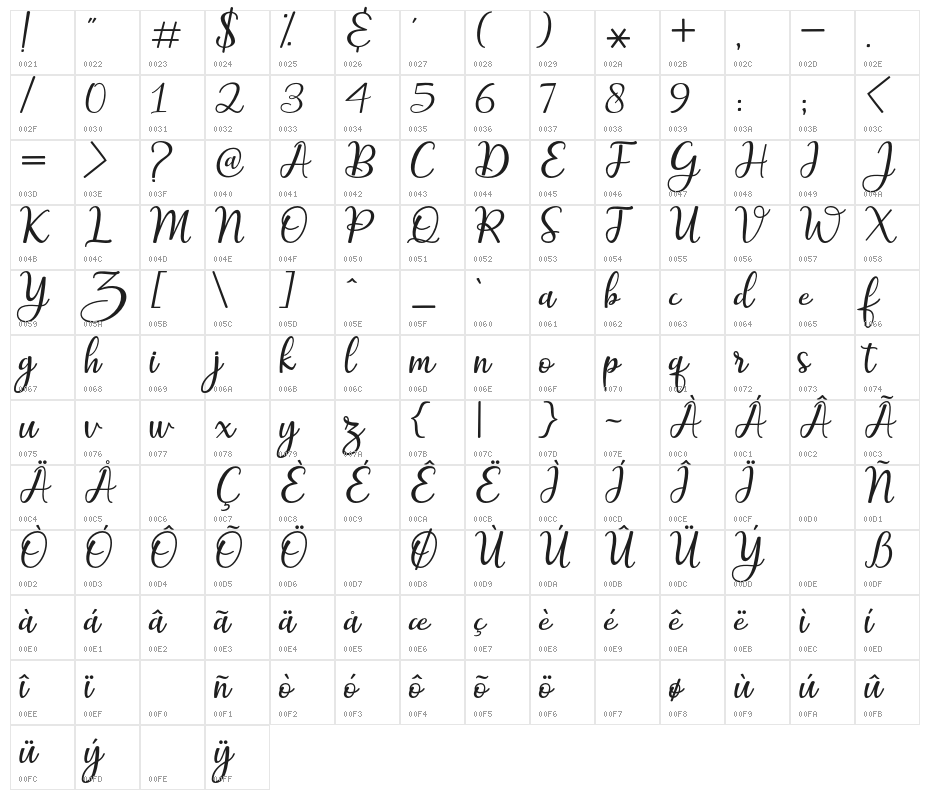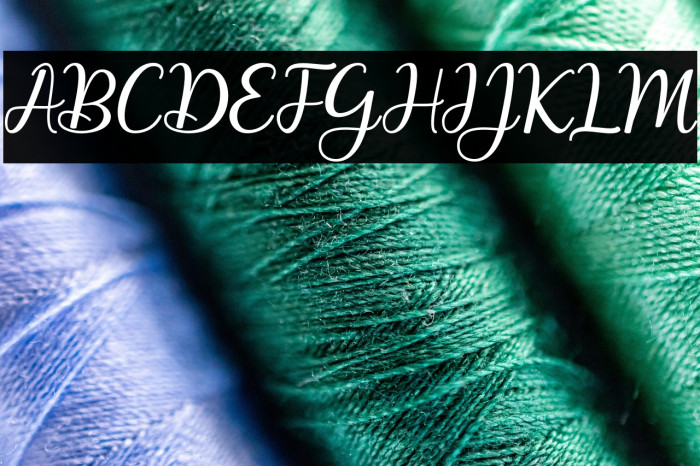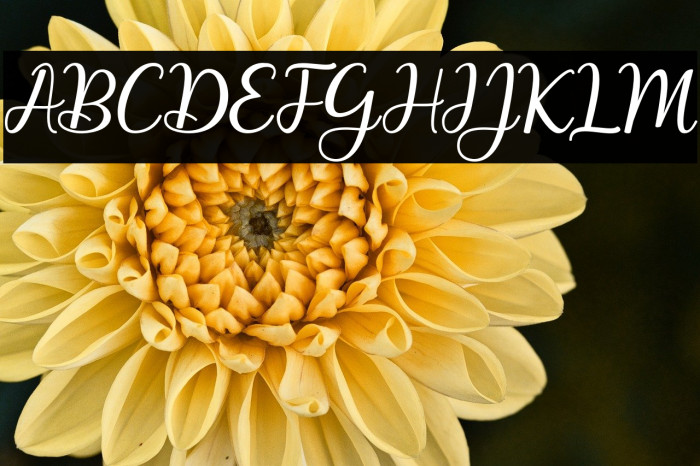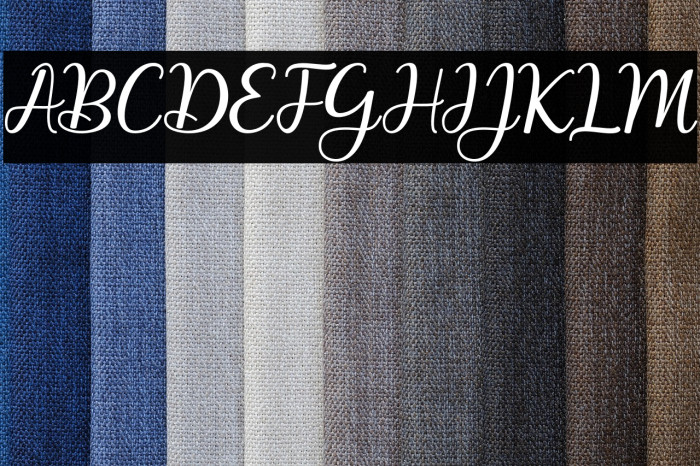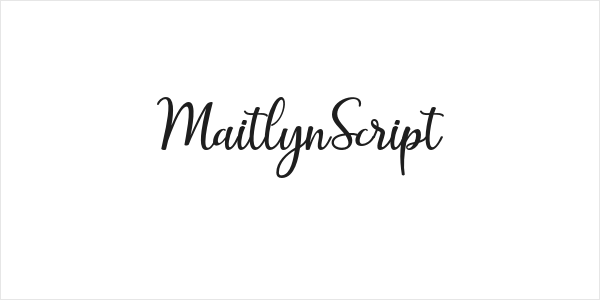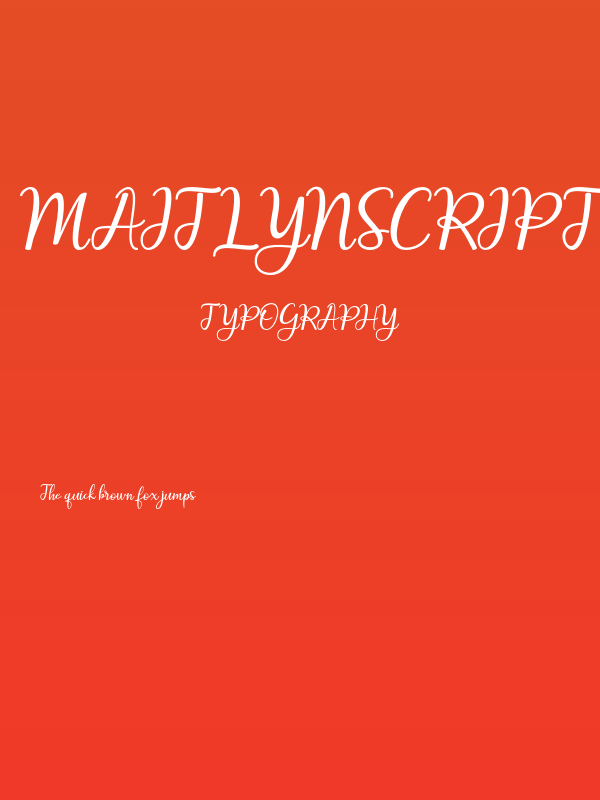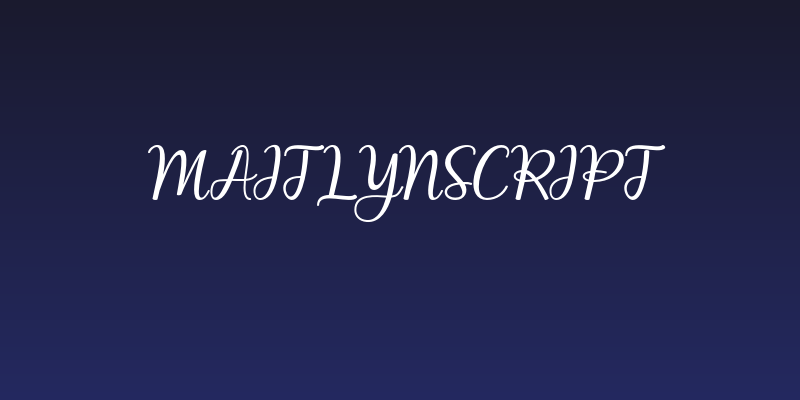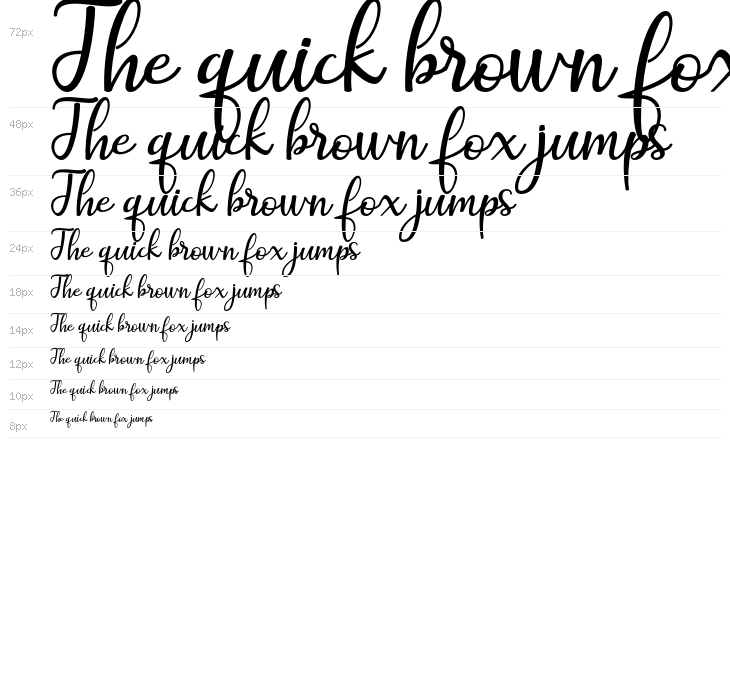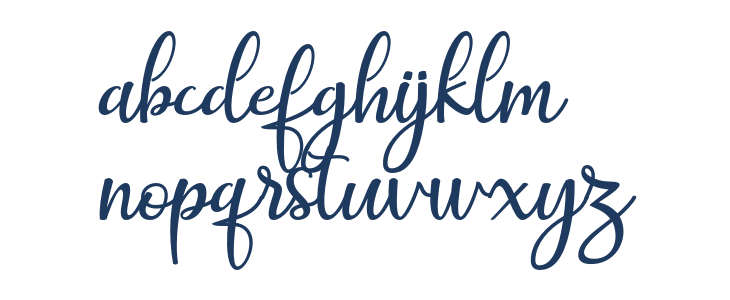
MaitlynScript Font
MaitlynScript Description
This script font features elegant, flowing lines with a handwritten style that exudes sophistication and charm. The uppercase letters are gracefully connected, while the lowercase letters maintain a fluid continuity that enhances readability. The numerals are distinct yet harmonize with the overall script style, and the special characters are thoughtfully designed to complement the alphabet. The font's strokes vary in thickness, creating a dynamic contrast that adds to its visual appeal. Its overall appearance is both modern and timeless, making it suitable for a variety of design applications.
| Overall Style | Elegant, Modern |
| Use Case | Logos, Invitations, Decorative text |
| Proposed Projects | Ideal for wedding invitations, elegant branding, greeting cards, and personal stationery. |